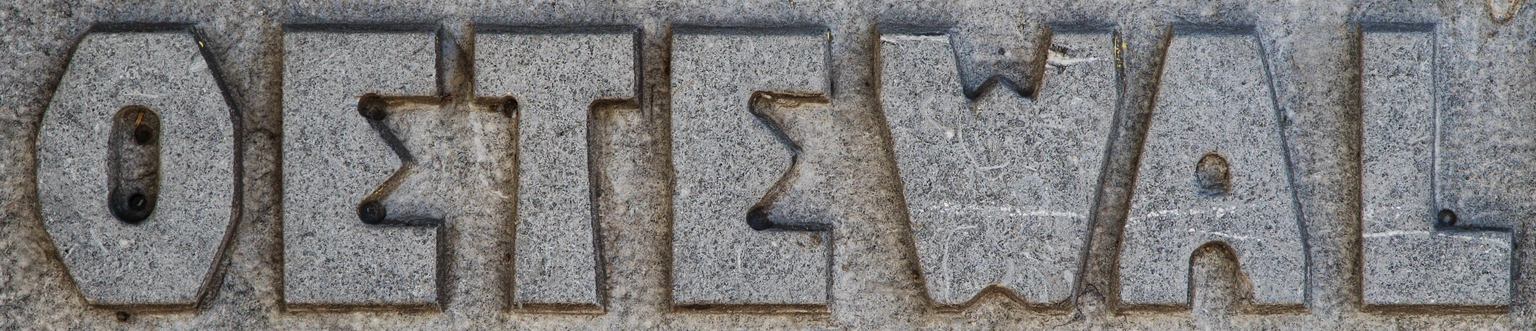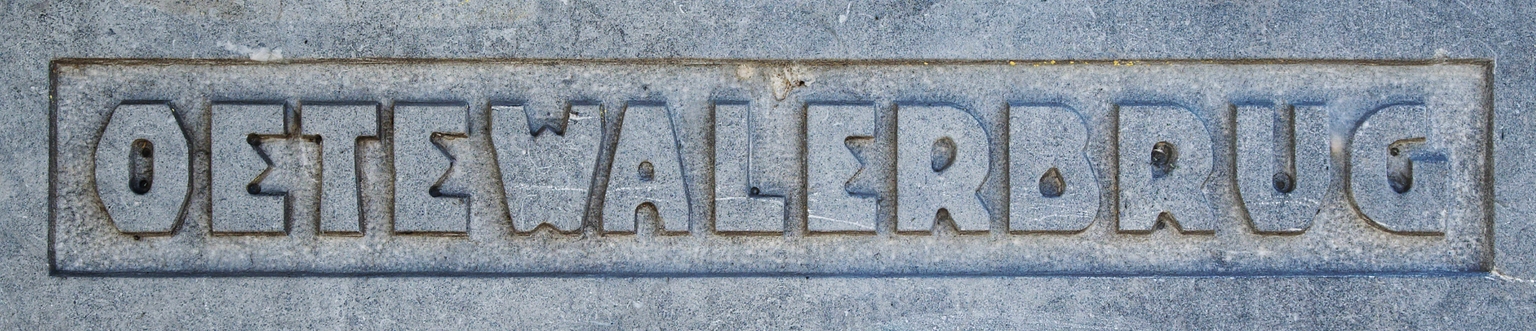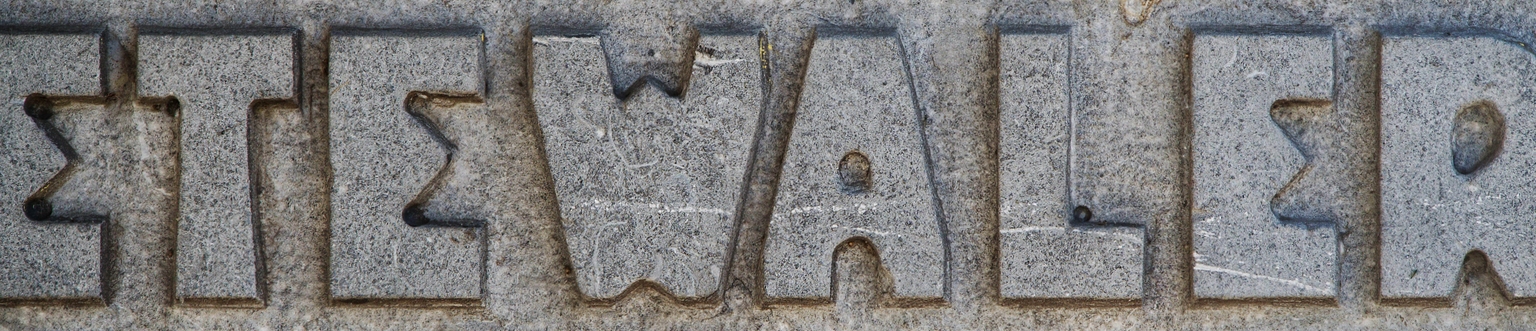
Kraai
Kraai is a modular display typeface designed by Ramiro Espinoza and inspired by the carved lettering on the Oetewalerbrug, a bridge located in Amsterdam’s Watergraafsmeer district. The original letterforms, created in the expressive spirit of the Amsterdam School, possess a handcrafted energy that Espinoza has reimagined in a digital form. The result is a typeface that retains the strength and personality of the original carvings while enhancing consistency and expanding the character set for contemporary design needs.
With its solid modular construction and a thoughtful balance of angular and rounded details, Kraai is ideal for posters, websites, signage, editorial design, and visual identities. It offers designers a bold typographic voice that feels both historic and modern.